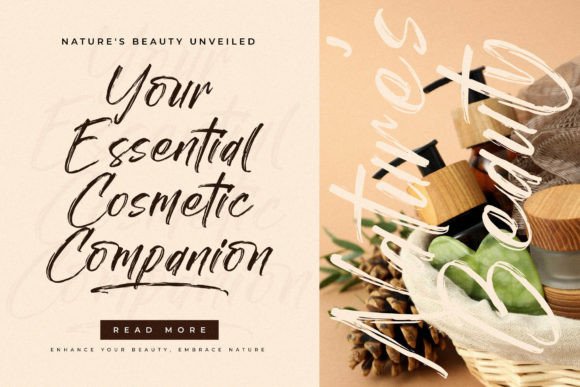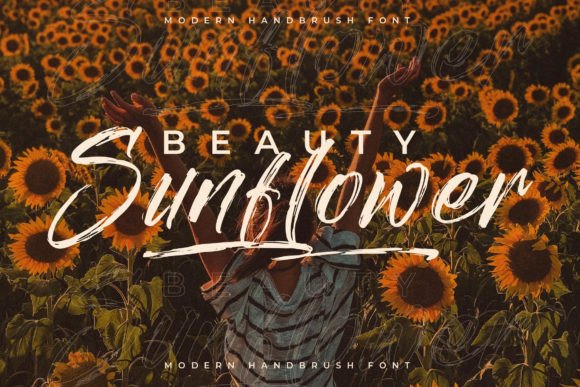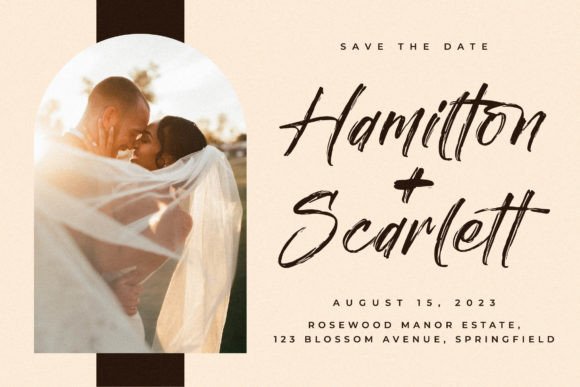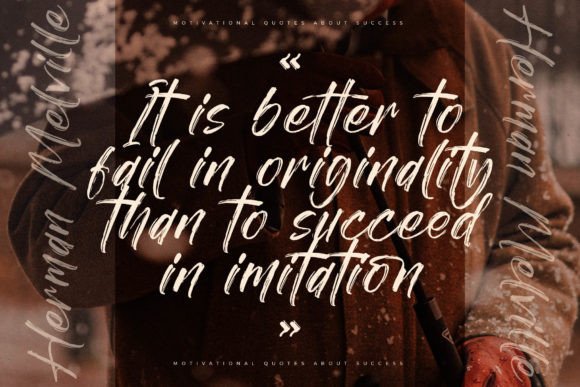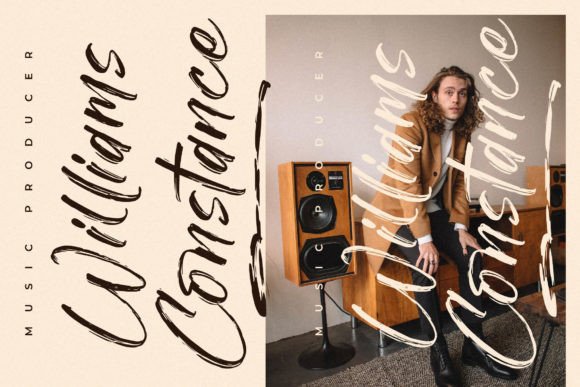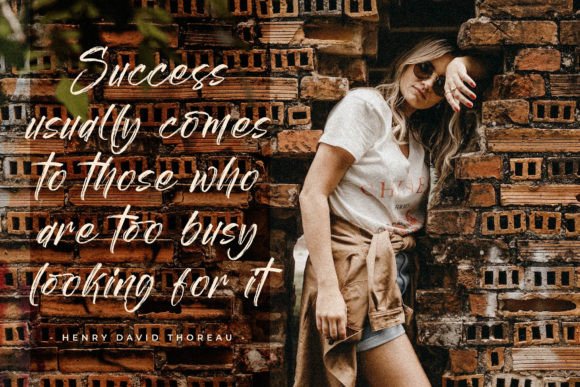
Introducing Calderyon: The Modern Handbrush Font for Creative Projects
Are you a designer or crafter looking for a unique and beautiful script font to elevate your projects? Look no further than Calderyon, a stunning modern handbrush font from Glorytype Studio. This versatile font is perfect for a wide range of applications, from logos and branding to homeware designs, product packaging, and more.
What is Calderyon Font?
Calderyon is a carefully crafted handbrush font that exudes a sense of elegance and sophistication. Its modern design makes it an ideal choice for designers and crafters who want to add a touch of personality to their projects. With its beautiful script style, Calderyon is sure to make your designs stand out from the crowd.
Features of Calderyon Font
So, what makes Calderyon font so special? Here are just a few of its key features:
- Modern Handbrush Design: Calderyon boasts a fresh and modern handbrush design that is perfect for creating unique and eye-catching designs.
- Beautiful Script Style: The font’s beautiful script style makes it ideal for projects that require a touch of elegance and sophistication.
- Highly Versatile: Calderyon is suitable for a wide range of projects, from logos and branding to homeware designs, product packaging, and more.
- Easy to Use: The font is easy to use and can be easily integrated into your design workflow.
Use Cases for Calderyon Font
So, what can you use Calderyon font for? The possibilities are endless! Here are some ideas to get you started:
- Logos and Branding: Use Calderyon to create a unique and memorable logo for your brand.
- Homeware Designs: Add a touch of elegance to your homeware designs, such as stationery, wall art, and more.
- Product Packaging: Make your product packaging stand out with Calderyon’s beautiful script style.
- Mugs and Apparel: Use Calderyon to create stunning designs for mugs, t-shirts, and other apparel.
- Posters and Quotes: Create eye-catching posters and quotes that showcase your favorite phrases or lyrics.
- Shopping Bags and Invitation Cards: Add a touch of personality to your shopping bags and invitation cards with Calderyon.
- Book Covers and Name Cards: Use Calderyon to create beautiful book covers and name cards that make a lasting impression.
- Labels and Photography: Add a touch of elegance to your labels and photography with Calderyon’s beautiful script style.
- Special Events: Use Calderyon to create stunning designs for special events, such as weddings, birthdays, and more.
Why Choose Calderyon Font?
So, why should you choose Calderyon font for your next project? Here are just a few reasons:
- Unique and Eye-Catching: Calderyon’s modern handbrush design makes it a unique and eye-catching choice for any project.
- High-Quality Design: The font is carefully crafted to ensure high-quality design and attention to detail.
- Easy to Use: Calderyon is easy to use and can be easily integrated into your design workflow.
- Versatile: The font is suitable for a wide range of projects, making it a great addition to any designer’s toolkit.
In conclusion, Calderyon is a stunning modern handbrush font that is perfect for designers and crafters looking to add a touch of elegance and sophistication to their projects. With its beautiful script style, highly versatile design, and ease of use, Calderyon is an excellent choice for any project. So why wait? Download Calderyon font today and take your designs to the next level!